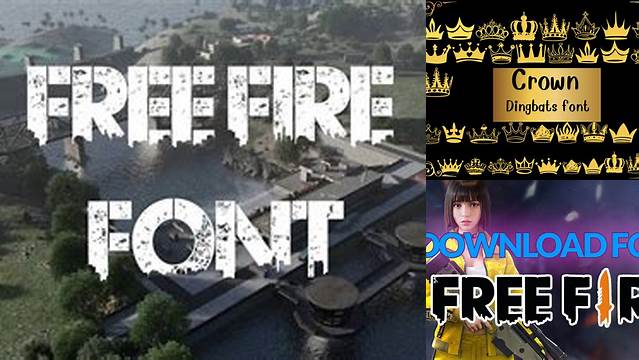
Get The Crown Font In Free Fire: Your Ultimate Guide
Hey, Free Fire fanatics! Ready to make your in-game name pop with the crown font? If you're here, you're probably wondering how to snag that sweet crown font for your Free Fire username, so you can flex on your opponents and let everyone know who's boss. Well, you've come to the right place. This guide will break down everything you need to know about the crown font in Free Fire, including how to get it, how to use it, and some cool variations to make your name truly unique. Let's dive in and get you that crown!
H2: Unveiling the Allure: What is the Crown Font in Free Fire?
So, what's the deal with the crown font in Free Fire, anyway? It's all about customization, my friends! The crown font isn't just some regular text; it's a stylish way to add a touch of royalty to your in-game identity. Imagine your name with a regal crown symbol above it – instantly recognizable and definitely eye-catching. This is what makes the crown font in Free Fire so desirable. The crown font typically involves adding a crown symbol (👑) or a stylized version of it to your username, or even incorporating other fancy symbols to make it stand out. It's more than just a name; it's a statement. It shows that you pay attention to detail and are willing to go the extra mile to personalize your profile. The crown font adds a level of prestige and personalization that plain text simply can't match. Plus, it helps you stand out in a sea of players, making you more memorable and recognizable on the battlefield. Whether you're a seasoned veteran or a newcomer, the crown font is a fun way to express your style and elevate your Free Fire experience. The visual impact is immediate, making your name much more noticeable. This is particularly effective during live streams, tournaments, or simply when you're playing with friends. The crown font becomes part of your brand in the Free Fire community.
There's a certain satisfaction in having a username that looks cool and reflects your personality. It's a way to celebrate your achievements, showcase your favorite characters, or simply express your creative side. The crown font provides a perfect opportunity to do just that. Many players use the crown to signify their dominance in the game. So, when you see a player rocking that crown, you know they're serious about their Free Fire game. It's a symbol of respect and fear. In the Free Fire community, a well-designed username with a crown font can influence perceptions, adding a layer of intimidation to your opponents. The crown font serves as an initial signal to others, potentially indicating your dedication and skill level. This added visual appeal can transform your in-game presence, giving you an edge in terms of recognition and visual impact. It's about more than just how your name looks; it's about how it makes you feel. When you have a name that you love, you're more likely to enjoy the game and feel confident when you play. So, if you're looking for a way to take your Free Fire game to the next level, get the crown font and show off your style!
H2: The Quest Begins: Finding and Selecting Your Crown Font
Alright, gamers, now the fun begins: How do you actually get the crown font in Free Fire? The journey starts with the basics. You can't directly type a crown symbol into your Free Fire username using your keyboard. That's where the magic of Unicode characters and special font generators comes in. It is crucial to recognize this. You can find a crown symbol by using a variety of online resources. Websites like unicode.org and various symbol search engines provide extensive lists of Unicode characters, including the crown symbol. Copy and paste the crown symbol from these resources. Alternatively, you can also use websites that specialize in generating fancy text and fonts. These generators take your desired username and apply different styles, including adding the crown symbol.
Another crucial step is to choose a font generator. There are many free online font generators. You can simply type in your desired username. These generators will transform the normal text into a variety of styles, including adding the crown symbol. Before using any generator, take a moment to review the text produced. Make sure that the style is consistent with the vision you have. Ensure the font is compatible with the Free Fire game. Not all fonts will work seamlessly, so it's important to choose one that is supported by Free Fire. Avoid fonts that include complicated symbols that might not be visible. Make sure the final appearance of the font generator displays clearly within the character limits allowed by Free Fire. Keep in mind that Free Fire imposes character limits for usernames. As you design your username, it's important to keep an eye on this limitation.
H2: Step-by-Step: Applying the Crown Font to Your Free Fire Name
Once you've decided on your username style, copy it. Open Free Fire. Tap on your profile icon in the top left corner of the main menu. Then, tap on the settings icon (gear symbol). Look for the 'Change Nickname' option. You will typically need a name change card or diamonds to change your name. If you have one, tap the option to change your name. Delete your current name. Now, paste your new crown-styled username into the text box. Review your username in the preview. Ensure the crown font is displaying correctly. Confirm the name change. If everything looks right, tap 'OK' to confirm your new name. The name change will typically require diamonds or a name change card. So, make sure you have the required resources before proceeding.
Once you confirm the name change, your username will be updated. The new username will display with the crown font. Your friends will now be able to see your new name with the crown! That's it. Now you're officially rocking the crown font in Free Fire! Be proud of your new name and go show off your skills on the battlefield. The process might seem a bit complicated at first, but it is fairly straightforward. It is worth the effort to enhance your profile with the crown font. The crown font can greatly elevate the aesthetic appeal of your profile and help you stand out. Now get out there and dominate!
H2: Name Change Essentials: Diamonds, Cards, and Costs
Changing your name in Free Fire isn’t free, guys. You need either diamonds or a name change card. Let’s break down the costs associated with getting that crown font in Free Fire.
Firstly, diamonds are the premium currency within the game. Diamonds must be purchased with real money. The cost of diamonds varies depending on the amount you buy. Secondly, the name change card is an alternative to using diamonds. These cards can be obtained through special events or by purchasing them from the in-game shop. The cost of the name change card can also vary. Before deciding on your name change method, it is important to consider both options. If you have a name change card, it's the most cost-effective route. If you don't have a card, you will need to buy diamonds. The cost of a name change can be seen in the name change menu.
When changing your name, the game will display the required number of diamonds. This will vary based on promotions. Buying diamonds is a straightforward process. Navigate to the in-game shop. Select the option to purchase diamonds. Choose a diamond package to buy. The payment will be processed through your device's app store or payment method. If using a name change card, locate and select the card within your inventory. Use the card to initiate the name change. Make sure you have the resources needed. This ensures a smooth name change process. Always be mindful of the current costs of name changes. It's important to budget. Check the game's official announcements. This can affect how the cost can fluctuate. If you are dedicated to Free Fire, getting the crown font is a worthwhile investment.
H2: Font Generator Adventures: Choosing the Right Tool for the Job
Okay, so you're ready to get your crown font in Free Fire, but which font generator should you use? There are a ton of options out there, so let's break down how to choose the right tool for the job.
First, look for user-friendliness. A good font generator should have a simple and easy-to-navigate interface. You want to quickly type in your desired name, see the options, and copy the text. Look at the different styles and features. Check if the generator supports a wide variety of fonts and special characters. If you can add a crown symbol, this will be the main thing you're looking for. See if the generator offers customizable options. This allows you to fine-tune the font. You can change the size, color, and other elements. Secondly, check for compatibility. Not all fonts will display correctly within Free Fire. Ensure the generator creates fonts that are compatible. Read user reviews. See what other players are saying. Find out if the generator is reliable and safe. Look for a good reputation. Check that the generator has positive reviews from other players. This will increase the likelihood of a good experience.
Thirdly, consider safety. Some font generators may request permissions that seem suspicious. Be careful. Avoid generators that ask for unnecessary personal information. Always choose a reputable and secure website. Make sure that the generator doesn't contain malware or other harmful software. This is crucial to keep your device safe. Last but not least, look at the price. Most font generators are free to use. Avoid paying for a font generator. It's wise to look for a free option. Keep these things in mind. They can help you to get the crown font quickly, easily, and safely. So, choose wisely, and you'll be rocking that crown in no time!
H2: Crown Font Variations: Getting Creative with Your Name
Ready to level up your game? Adding the crown font in Free Fire is just the beginning. You can take your name even further by getting creative! Let's explore some awesome variations to make your username stand out.
First, try combining the crown with other symbols. Add stars, hearts, or special characters. Incorporating these symbols creates a unique design. You can create a personalized logo. Think about using different font styles. Combine the crown with fonts that are bold, italic, or even handwritten-looking. These unique fonts can add personality. Use colors. If Free Fire allows it, use colored text to draw attention to your name. It can make your username pop. If it doesn't allow it, your clan tag might be able to have colored text. Experiment with different name lengths. Keep it short and simple, or try a longer, more descriptive name. Balance the name with the appearance of the crown. Keep in mind the character limits.
Next, try different crown designs. The crown symbol has several different versions. Some are more elaborate than others. Use a font generator to explore different crown designs. Try using a custom image. Some players add custom images to their names. Use a graphic editing tool and create an image to represent your username. Combine the crown with your in-game stats. If you want, add your KD ratio or favorite weapon to your name. This can impress your opponents. Add your clan tag. This adds your team identification. Get creative. If you can't make it a crown, use another symbol. The creativity and originality is what counts. So, embrace your unique style and show the Free Fire community what you've got!
H2: Avoiding the Pitfalls: Common Mistakes to Dodge
While getting the crown font in Free Fire is cool, there are some common pitfalls you'll want to avoid. Here's what to watch out for.
Firstly, choose a font generator carefully. Some generators might create fonts that are not compatible with Free Fire. When the font isn't supported, the text will appear as blank boxes or garbled characters. Always test your font choice. If the font doesn't work properly, look for an alternative. Check for scams. Some websites may ask for your personal information. Avoid giving out your login details to untrusted sites. Secondly, pay attention to character limits. Free Fire has limits on the number of characters allowed in your username. Make sure your chosen name fits within these limits. Remember, even if the generator provides a long name, it might not work. Check your name in the game before confirming the change. Keep your username simple. Avoid overly complicated names. These names can be difficult to read. Choose a name that is easy to remember.
Thirdly, avoid copying names. Be original. Don't copy another player's username. This is seen as disrespectful. Instead, take inspiration. Try to make your own. The aim is to make a distinctive name. If you want to stand out, you should be original. Don't rush the process. Take your time to explore different options. Don't settle for the first font you find. Experiment. Check for inappropriate language. Keep the name clean. Avoid any offensive words or phrases. Follow the Free Fire community guidelines. This will help you to maintain a positive image. By avoiding these mistakes, you can avoid frustration and enjoy the process of getting the crown font.
H2: Staying Ahead of the Curve: Keeping Your Font Fresh
Once you’ve got the crown font in Free Fire, it's important to keep your username fresh. It's all about maintaining a unique and appealing identity. Here's how to stay ahead of the curve.
Firstly, regularly change your username. Periodically updating your name keeps things interesting. Consider changing your name to reflect in-game achievements. This will show your dedication to the game. If you don't want to constantly change your name, try experimenting with different crown variations. Don't be afraid to change your font. Keep up with trends. Follow the latest design trends. You will get new ideas. This way, your name will stay relevant. Secondly, stay up-to-date. Free Fire often introduces new features. They might affect how fonts appear. Monitor the game updates. Keep an eye out for the introduction of new characters or events. Incorporate them into your username. This will show you're engaged with the game. Use social media. Share your username on social media. You can also get inspiration from other players. Post pictures of your name with different crown variations. Get feedback. Take part in online communities. Gather opinions. Listen to the advice of other players. You can find tips for usernames.
Next, consider seasonal changes. Change your name to match the game's seasonal events. Use symbols and fonts relevant to the event. Embrace the changing world of Free Fire. Adapt your name to reflect your style. This ensures your profile stays current. The goal is to keep it unique and personalized. By embracing these methods, your username will stay appealing. Your name will be noticed! So, keep your name fresh. That is the key to success in Free Fire.
H2: Beyond the Crown: Other Stylish Font Options
While the crown is fantastic, let's explore other stylish font options you can use in Free Fire. Besides the crown font in Free Fire, there are other options that allow you to express yourself.
Firstly, use different font styles. Use a font generator that creates a variety of fonts. These fonts can change the entire look of your name. Use bold, italic, and underlined fonts. These fonts add emphasis. Use monospace fonts. This creates a clean appearance. Use a font that is easy to read. Avoid fonts that are too complicated. Use special characters. Try incorporating symbols. Add stars, hearts, and other icons. These symbols add visual interest. Secondly, experiment with color. If Free Fire allows it, use colors to make your name stand out. A color can highlight the key elements of your name. Color can make your name visually appealing.
Thirdly, use other symbols. Don't just use the crown. You can also use other cool symbols. Add your favorite weapon's logo. Show your favorite characters. You can choose to use emblems. Try adding borders and frames. These add a sense of style. If you want, you can make a custom image to add to your name. Use these features to create a unique profile. Next, use various language fonts. Experiment with different languages. This is an opportunity to be more creative. Make sure the fonts display correctly. Keep the font clean. The goal is to make a unique and appealing profile. When you explore these options, you'll be able to discover new ways to express your style.
H2: Font Generators vs. Manual Input: What's the Difference?
When it comes to getting the crown font in Free Fire, you’ve got two main approaches: font generators and manual input. So, what’s the difference, and which one is right for you?
Font generators are online tools that automatically convert your text into different styles. You simply type your desired name. The generator provides a range of font options. The process is usually straightforward. Font generators are great for people who want to quickly try out different styles. The downside is you may not have complete control over the exact appearance of your name. Manual input involves finding individual characters. You then copy and paste them. This approach gives you more control. Manual input allows for precise customization. The challenge is that it can be more time-consuming. The advantage is that you can precisely create your unique profile.
Font generators will often include the crown symbol, and you can easily add it. With manual input, you'll need to find and copy the crown symbol. The font generator approach is easier. But, manual input gives you maximum control. If you're looking for simplicity, font generators are ideal. If you want granular control, manual input is the way to go. Both approaches can get you that crown font, but it's about what level of customization you want. It's important to have an idea of the look you want. Font generators are convenient. Manual input offers more creative freedom. So, consider your preference and decide accordingly.
H2: Troubleshooting: Fixing Font Display Issues in Free Fire
Sometimes, even with the crown font in Free Fire, you might run into display issues. Here's how to troubleshoot and fix those problems.
First, check font compatibility. Not all fonts are supported. Free Fire may not support every font. Some fonts may display as blank boxes or garbled characters. Try a different font. There are several online font generators that offer a variety of fonts. Experiment with different font choices. Choose a font that is known to work well in Free Fire. Test the font in your profile settings to see how it displays. Secondly, check the device. The device you're using can sometimes affect the display of fonts. Certain mobile devices or operating systems may not render certain fonts correctly. Try a different device. This is useful to determine if it is a device issue. Ensure your device is up-to-date. Update to the latest operating system. The latest software can fix display issues. Clear cache. If a particular font displays correctly, clear your game's cache. This often resolves font rendering problems.
Thirdly, check in-game settings. The game settings can affect the font display. Check the display settings. Ensure that all font options are enabled. Change the resolution settings. Make sure the resolution is set to the recommended setting. Test your internet connection. A poor internet connection can sometimes affect how the font appears. Check your connection. Then try to resolve the internet issue. Fourthly, contact support. If you still have font display issues, it might be a game issue. Contact Free Fire support. Provide details about the problem. They will be able to help you resolve the issue. If you've tried all the steps above and the font still won't display correctly, there might be an issue with the font itself. So, keep these troubleshooting steps in mind. They can help you quickly resolve any font-related problems and get you back to rocking that crown font. This guarantees the best gaming experience.
H2: Community Spotlight: Showcasing Awesome Crown Font Names
Let's celebrate the creativity of the Free Fire community and showcase some awesome crown font names that are out there. Here's a spotlight on some cool usernames.
Firstly, look at creative usernames. Some players combine their name with the crown. Others incorporate their favorite weapons or characters. Some of these usernames are inspiring. Then, look at unique symbol combinations. Other players pair the crown with stars, hearts, or special characters. These names add visual interest. Remember that the goal is to be creative. Secondly, check out the themed names. Look at names that are themed around the different seasons. It is a creative way to express your in-game style. Observe names that are focused on clans. These are used to show team unity. Names with personalized logos are also popular.
Thirdly, notice usernames with a good balance. Consider names that are short and simple. It's also important to observe the names that are easy to read. These names are well-designed. Lastly, observe the names with creative fonts. Some players try out various fonts to create interesting effects. It's important to use a font generator that is supported. These are several names. They are designed to be memorable. The main idea is to be inspired. These usernames show how to use the crown font and make it your own. This showcases how you can integrate your creativity with the crown font. So, get inspired by these awesome usernames. These names should inspire you to take your Free Fire profile to the next level.
H2: The Legalities: Are Crown Fonts Permitted in Free Fire?
Now, let's address a crucial question: Are crown fonts allowed in Free Fire? The short answer is yes, but there are some things to keep in mind. The use of the crown font in Free Fire itself isn't against the rules. The ability to personalize your username is encouraged. The crown font is a fantastic option for adding flair to your profile. However, there are restrictions. The main legal aspect is to adhere to Free Fire's terms of service. This means your username should not violate any rules. Follow the in-game guidelines.
Firstly, avoid offensive content. Don't use any inappropriate words, phrases, or symbols. This includes profanity, hate speech, or anything that could be considered offensive. It is important to keep your username clean. Do not impersonate other players. Don't use a name that can confuse or deceive other players. Follow the rules regarding the content. Secondly, avoid using names that are trademarked or copyrighted. Don't use the names of brands, characters, or intellectual property without permission. Respect the intellectual property rights of others. Thirdly, avoid illegal activities. Don't engage in any fraudulent or illegal activity within the game. Do not use a username that promotes cheating or hacking. Ensure that the name is used for fun.
Finally, be mindful of character limits. There is a limit to the number of characters. Ensure your name fits within the limits. It's essential to avoid creating problems for yourself. Your name shouldn't violate the guidelines. By adhering to these rules, you will avoid getting into trouble. So, have fun expressing yourself. These rules ensure a fair and enjoyable environment for all. The aim is to be creative and safe while getting the crown font in Free Fire. That's the key to a positive and compliant experience.
H2: Crown Font and Beyond: Maximizing Your Free Fire Profile
Getting the crown font in Free Fire is a great start, but how do you maximize your Free Fire profile overall? Let's explore some tips.
Firstly, focus on your skills. A cool name is meaningless if you don't have the skills to back it up. The name doesn't define your in-game skills. Practice. Improve your gameplay. Learn maps. Master your favorite weapons. You must consistently improve. Secondly, create a professional profile. Add a profile picture. Customize your profile banner. Choose a background. Customize your profile. Make your profile more engaging. It is important to create a good first impression. Display your achievements. Share your rank. Highlight your KD ratio. Showcase your accomplishments. Your profile is a window into your skills. It should be clear. A well-maintained profile is a sign of success.
Thirdly, build a community. Connect with other players. Add friends. Join a clan. Participate in community events. Create a network of players. This can enhance your overall Free Fire experience. Learn to play in a team. Good teamwork is vital. Communicate effectively. Support your team members. Collaboration is very important. Fourthly, be mindful of in-game etiquette. Show respect for other players. Communicate politely. Avoid any toxic behavior. Play fairly. The aim is to create a positive environment. Your behavior can improve your reputation. By following these tips, you can create a better profile. The goal is to show your achievements and interact with the community. Use the crown font as a starting point. Use your skills to climb the ranks. The goal is to build a well-respected and successful profile.
H2: Free Fire Updates: How New Features Affect Your Crown Font
Free Fire is always evolving, and updates can affect your crown font strategy. Here's what you need to know to stay updated.
Firstly, stay informed. Follow Free Fire's official channels. The developers announce updates. Read the patch notes. They will explain the changes. Watch streams from community influencers. They will provide the latest information. Secondly, check font compatibility. New updates can introduce new fonts. Test the fonts you use. You need to ensure that they are still compatible. Check the font appearance. Ensure the characters display correctly. Some fonts might become unsupported. If this happens, search for an alternative. Thirdly, consider new in-game features. The developers may introduce new features that will let you customize your profile. Take advantage of the new elements. If new emblems or symbols are available, use them. Experiment with the features. The aim is to improve your in-game appearance.
Next, adapt your strategies. If new features are released, adapt the methods you use. Change your username as needed. It's important to adapt. You must be flexible. Keep learning. Update your profile. Monitor the game for new trends. Ensure your style stays unique. Fourthly, follow community trends. See what other players are doing. Take inspiration from the trends. Pay attention to the popular nicknames. It can provide you with ideas. Engage with the community. Share your tips. Share your ideas. This can help you to keep your profile updated. Stay up to date. Keep the fonts fresh. If you're up-to-date, you'll always have the edge. So, keep these points in mind. Free Fire's updates will always bring in new opportunities. These updates can improve your in-game presence. Make sure you can adapt.
H2: The Future of Customization: What's Next for Free Fire Names?
What does the future hold for in-game customization, especially concerning the crown font in Free Fire? Let's take a look.
Firstly, there might be more complex symbols. The developers might introduce new special characters. There could be more font options. These options would make your profile stand out. You might be able to customize your name further. Secondly, expect increased personalization. There might be new features. These could allow you to add personal logos. The ability to include your stats. These options will make your profile more individualized. The goal is to showcase your unique style. Thirdly, look at community-driven creations. The developers could allow user-generated content. Allow the users to contribute. These include the introduction of new fonts.
Next, more emphasis on social integration. Free Fire could have improved integration with social media. You'd be able to easily share your profile. The goal is to share your in-game achievements. The aim is to share with a wider audience. Think about dynamic names. The game could have names that adapt to the events. Dynamic names would adapt to the game. Consider the new characters. This would make your profile more engaging. Next, it is about evolving in-game recognition. The developers may introduce more in-game rewards. They might give more prestige to the players. This would motivate players to show their skills. Be prepared to adapt your methods. Keep your methods relevant. If the future is uncertain, embrace it. Free Fire's customization options are constantly changing. Your name could become more unique. By following these trends, your profile will be more appealing.
H2: Conclusion: Rocking the Crown, Dominating the Game
So, you've made it! You know how to get and use the crown font in Free Fire. Now, it's time to dominate the game.
Firstly, go out there and play! Apply what you've learned. Customize your profile. Add the crown font. It will reflect your style. Focus on your in-game skills. Practice. Participate in matches. Learn from other players. Secondly, be creative and have fun. Experiment with different fonts and combinations. Explore and express yourself. Have fun with the game. Be original. Your creativity is your strongest asset. Thirdly, stay engaged. Follow the latest trends. Stay up-to-date with the changes. Engage with the Free Fire community. This will give you new ideas. Your profile is key to being recognized. Continue to update your profile.